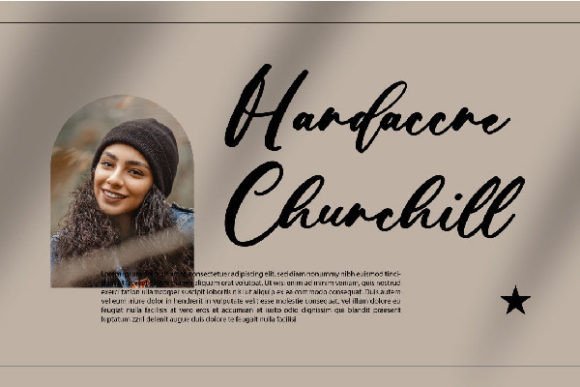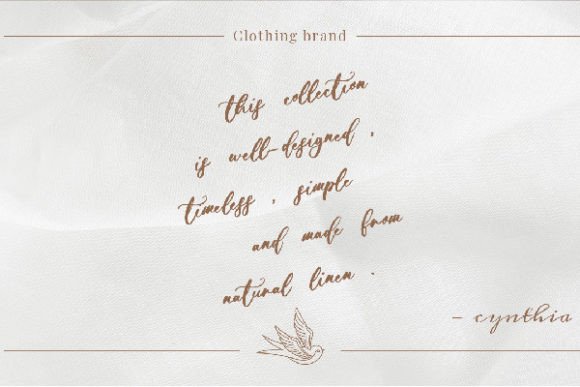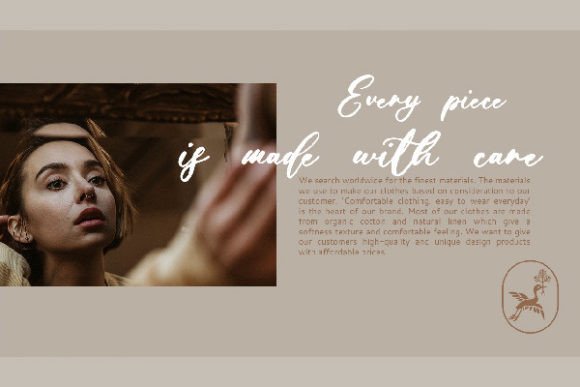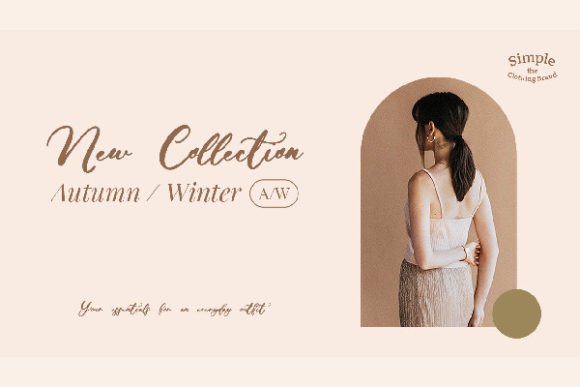
The Art of Handwriting: Introducing the Hardacre Churchill Font
You know that moment when you stumble upon the perfect font and suddenly, your design project comes to life? It’s like finding the missing piece of a puzzle, and everything just clicks. For designers and creatives, this feeling is priceless. And, that’s exactly what the Hardacre Churchill Font offers – a taste of handwritten elegance that can elevate any project from ordinary to extraordinary.
Designed to mimic the fluidity of handwriting, the Hardacre Churchill Font is perfect for a wide range of applications, from wall displays and wedding invitations to social media post logos and advertisements. Its versatility makes it a valuable asset for designers looking to add a personal touch to their work.
Hardacre Churchill Font Key Features
- Unique Characteristics: Distinctive, elegant script font with a vintage feel, ideal for invitations, wedding stationery, and luxury branding
- Font Style: Script, Calligraphy
Designer Review: Hardacre Churchill Font
I recently had the chance to work with the Hardacre Churchill font, and overall, I have mixed feelings about it. Let’s dive into the details.
- Unique aesthetic: The font has a distinct, elegant feel that sets it apart from more common serif fonts.
- Good legibility: The letterforms are well-designed, making it easy to read, even at smaller font sizes.
- Limited font family: The Hardacre Churchill font is only available in one weight, which might not be ideal for projects requiring multiple font weights.
- No bold or italic variations: This can limit its use in designs where bold or italic text is necessary.
- May not be suitable for display text: The font’s elegance might make it less effective for display headings or titles.
The Hardacre Churchill font is a solid choice for body text or small-scale projects. However, its limitations might make it less versatile for more complex designs. With some creative workarounds, it can still be a great addition to your design arsenal.
The Hardacre Churchill Font is ideal for use in a variety of applications, including:
Alternatives to Hardacre Churchill Font
Playfair Display is a high-end serif font with elegant and luxurious feel. It’s ideal for use in titles, headings, and other prominent text where you want to create a sense of sophistication and refinement. It has a similar luxurious feel to Hardacre Churchill Font, but with a more refined and classic look.
Comparison: While both fonts have a luxurious feel, Playfair Display is more refined and classic, whereas Hardacre Churchill Font has a more vintage and distressed look.
Pacifico is a beautiful, elegant script font that’s perfect for use in titles, headings, and other prominent text. It has a relaxed, beachy vibe that’s ideal for use in branding and marketing materials. It’s a good alternative to Hardacre Churchill Font for designers who want a more modern and elegant look.
Comparison: While both fonts have a elegant feel, Pacifico is more modern and relaxed, whereas Hardacre Churchill Font has a more vintage and distressed look.